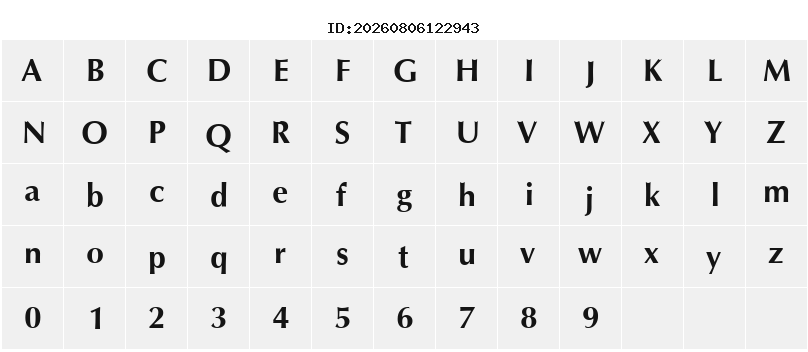
• Font Name: Opus
• Designer: SoftMaker Software GmbH
About Opus.ttf
Opus.ttf is a modern, elegant sans-serif font designed for ultimate readability and visual harmony. Perfect for branding, headlines, web design, and print materials.